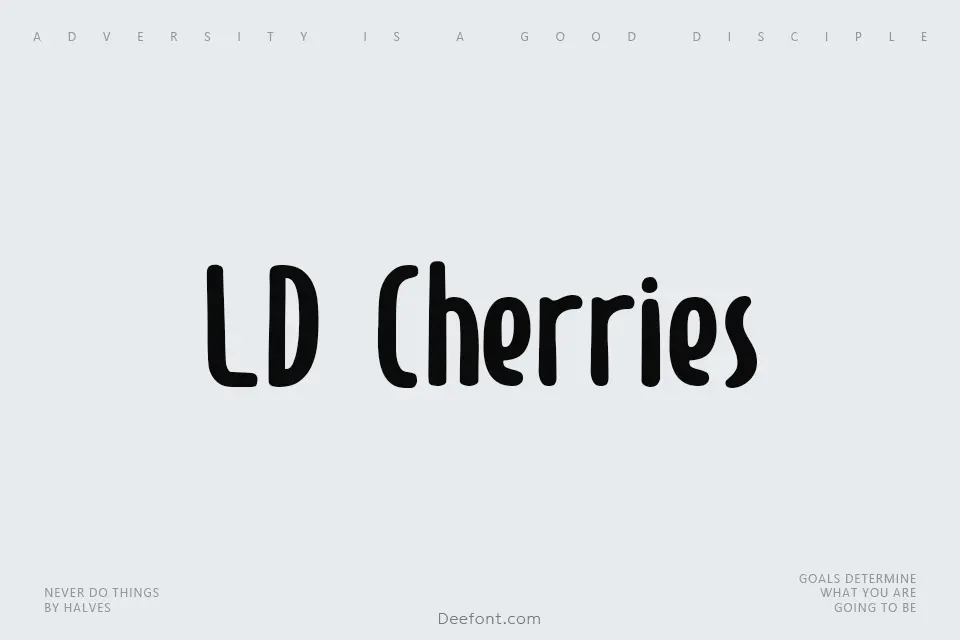
LD Cherries Font
LD Cherries Font is a charming hand-drawn typeface that brings a playful and whimsical touch to any design. With its rounded characters and smooth curves, this font exudes a friendly and approachable vibe, making it perfect for projects aimed at children or those that require a light-hearted feel. Its unique bouncy style adds character to text, ensuring that it stands out while maintaining legibility. Ideal for both digital and print media, LD Cherries Font is a delightful choice for creative endeavors.